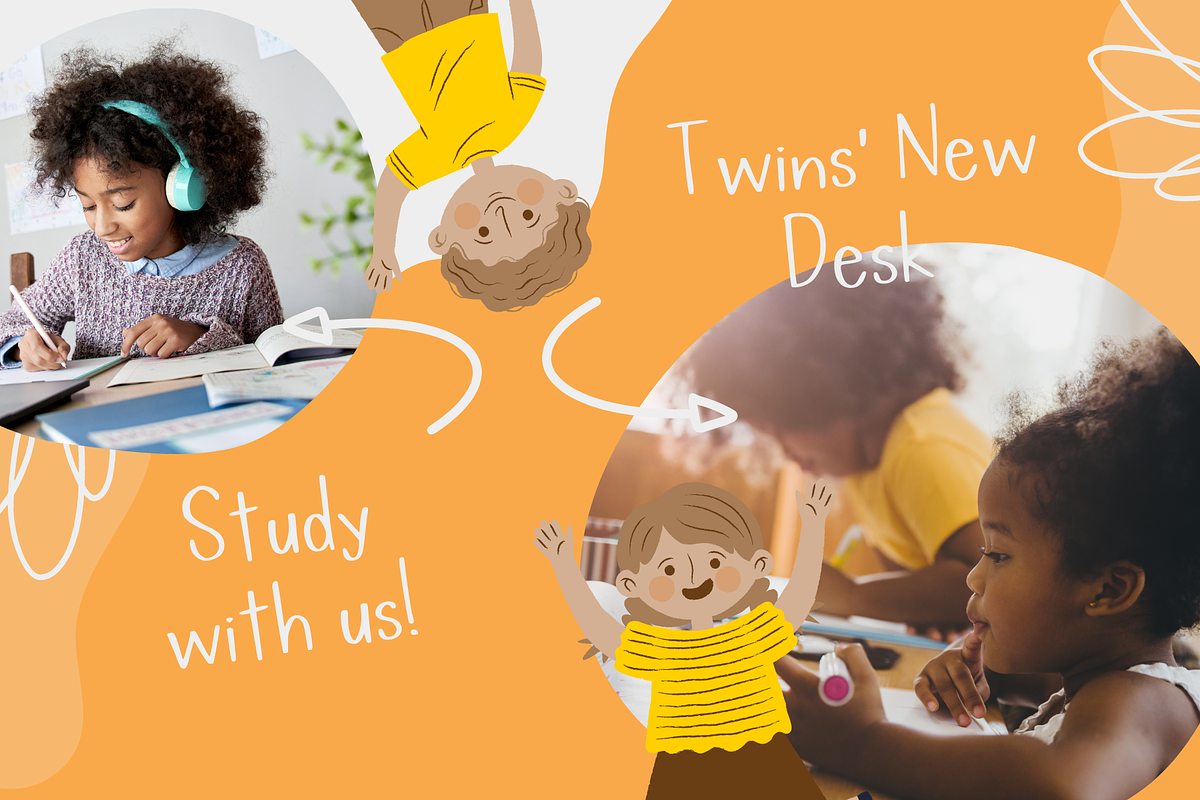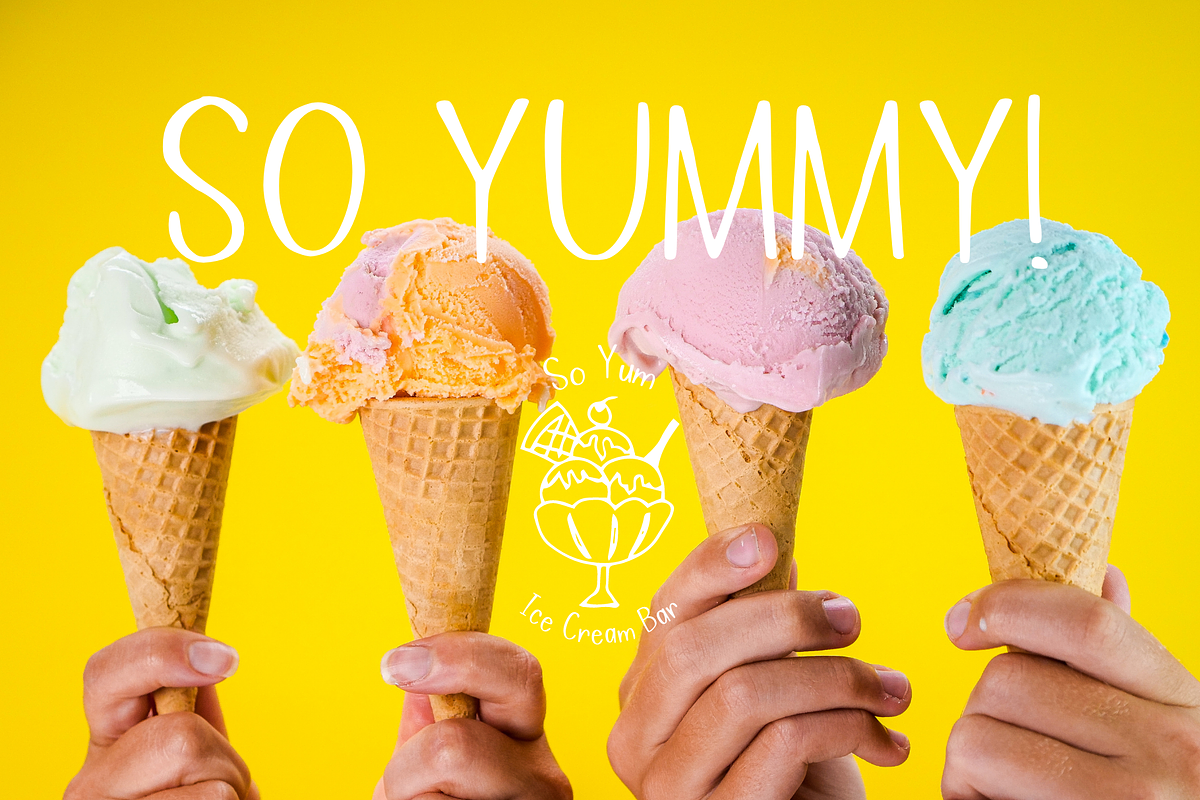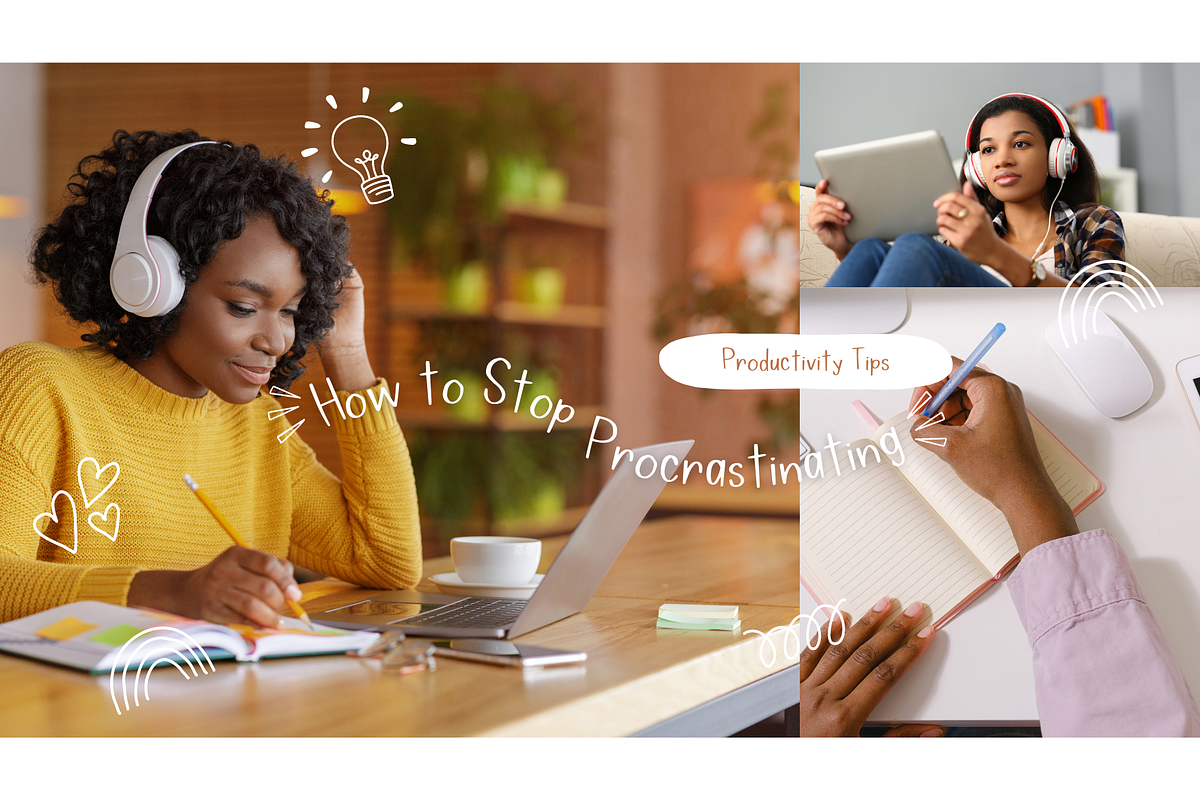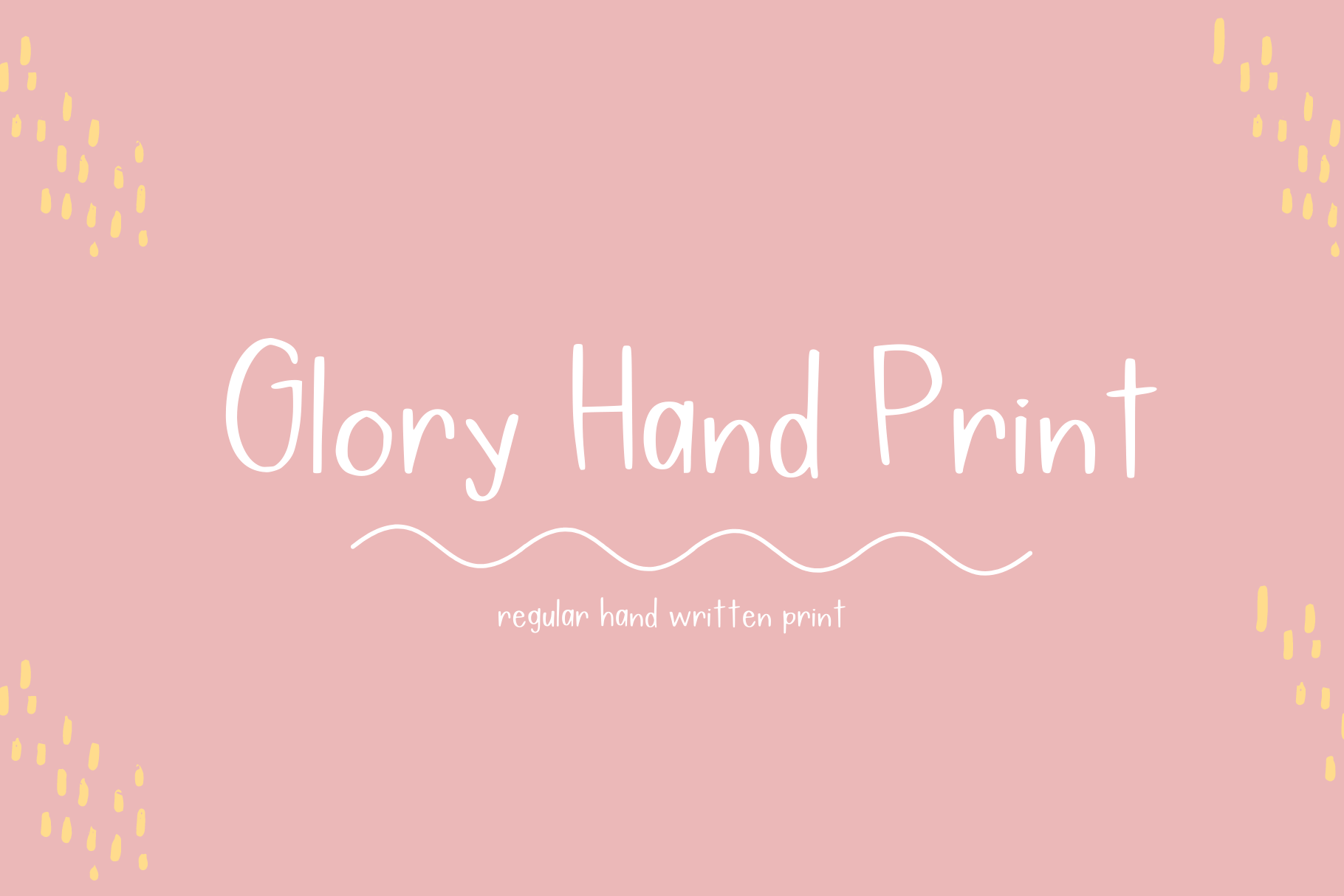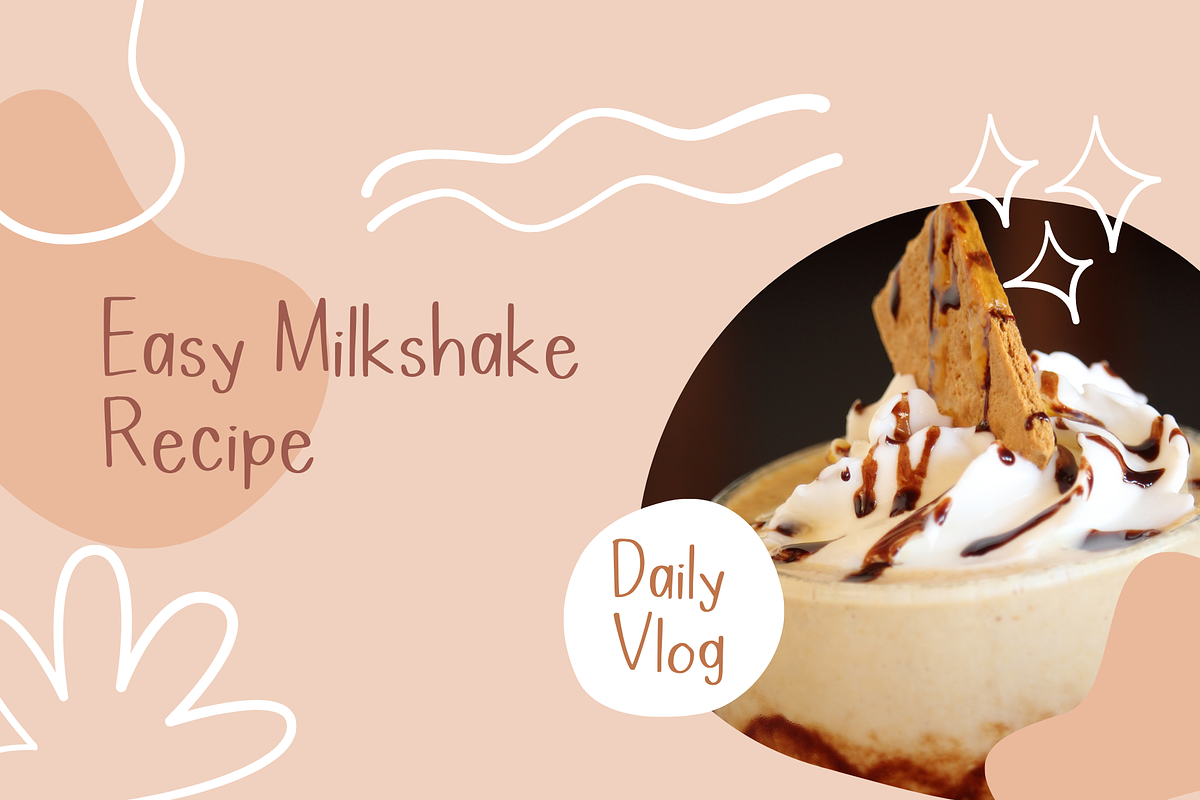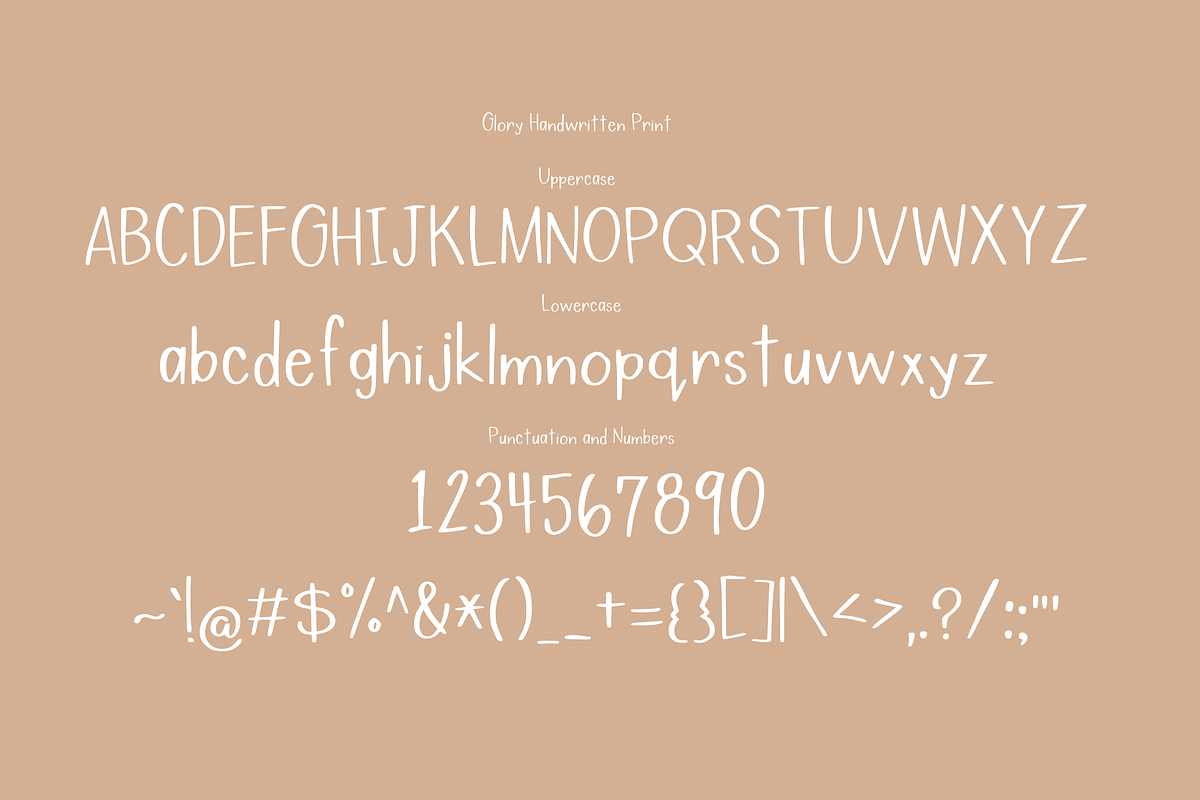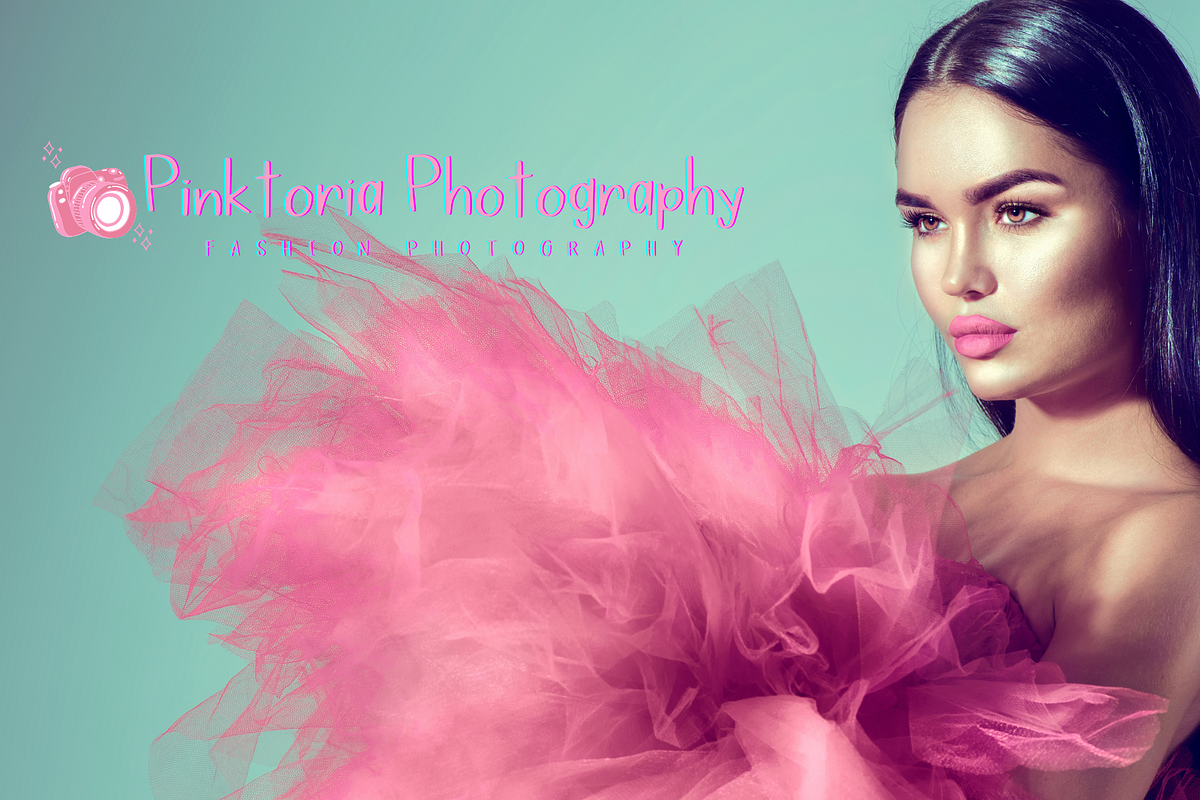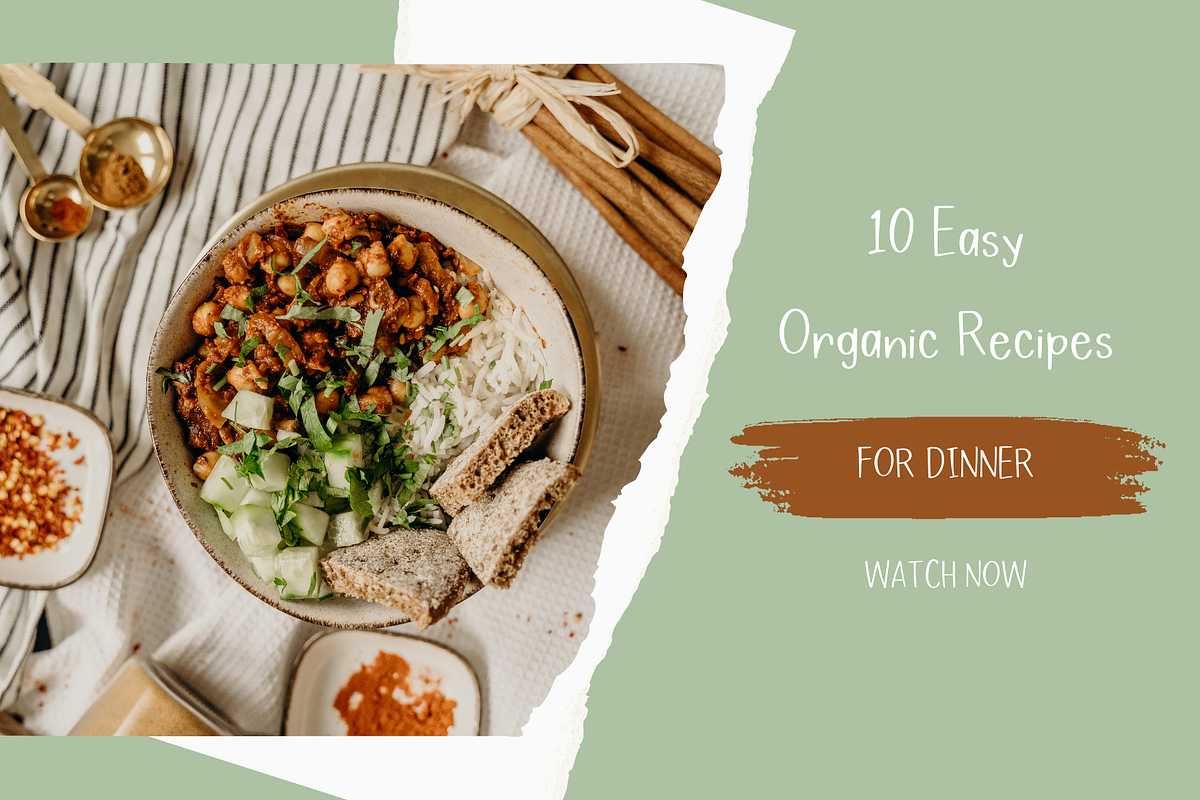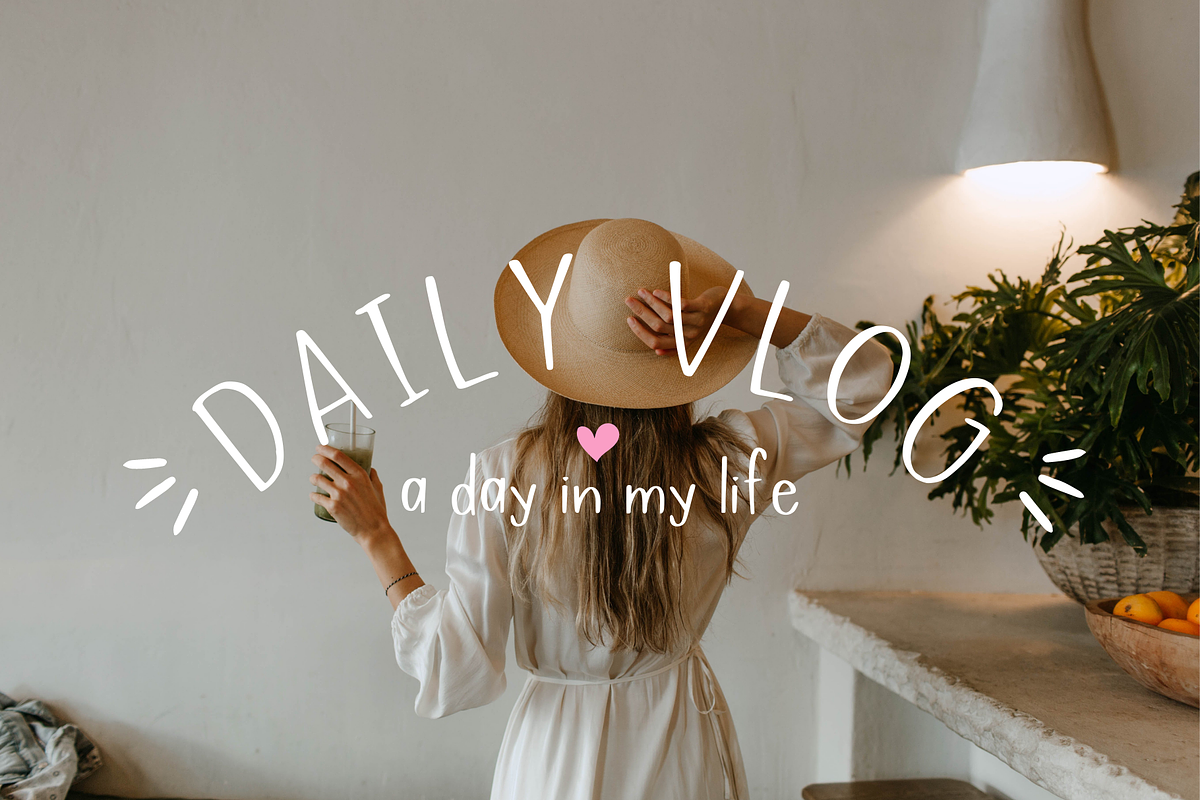
Glory Hand Print - Handwriting Font
Glory Hand Print is my original hand writing transformed into a font. You will receive my real hand writing style or print. You can use this font for various business branding, social media post, film and TV and other graphic designed projects. Designs you can use Glory Print Font for as invitations, marketing post and many more! Hand written by LoveTis'True.